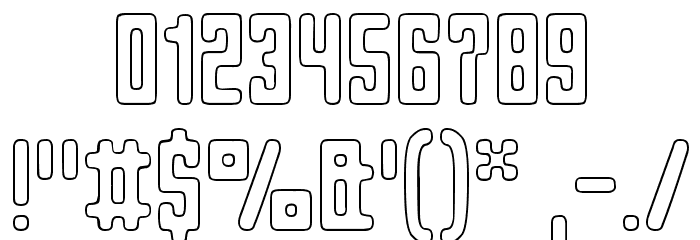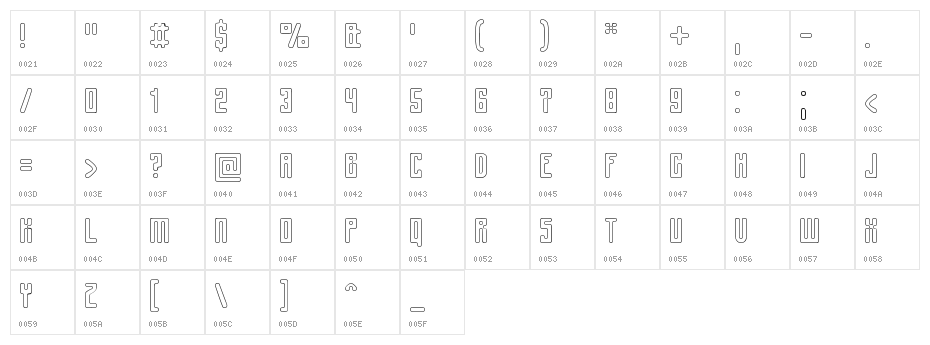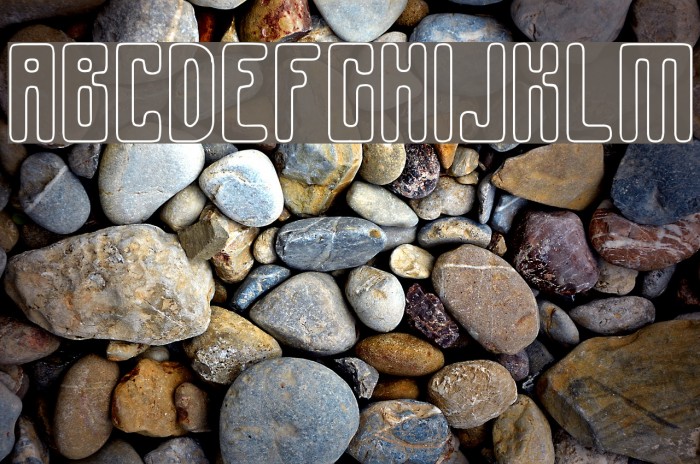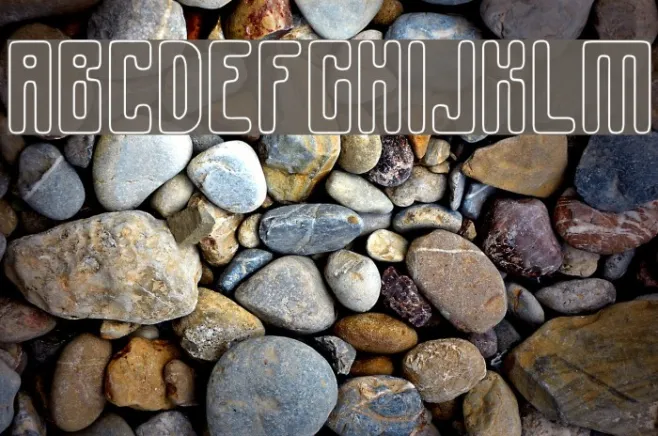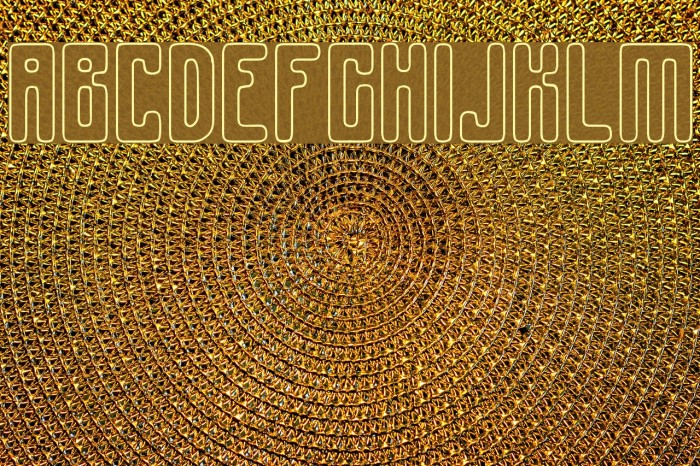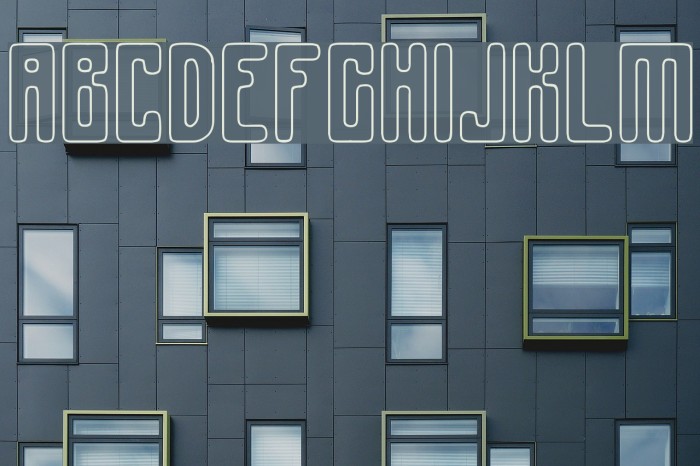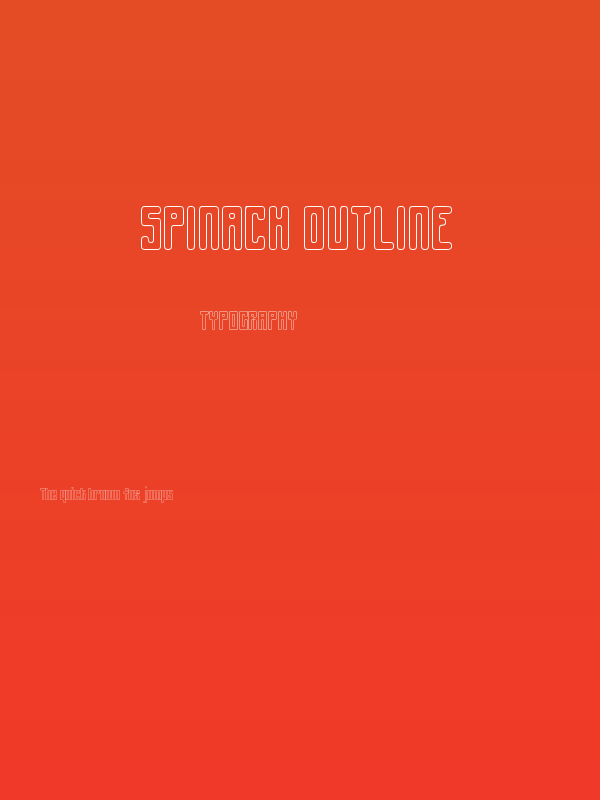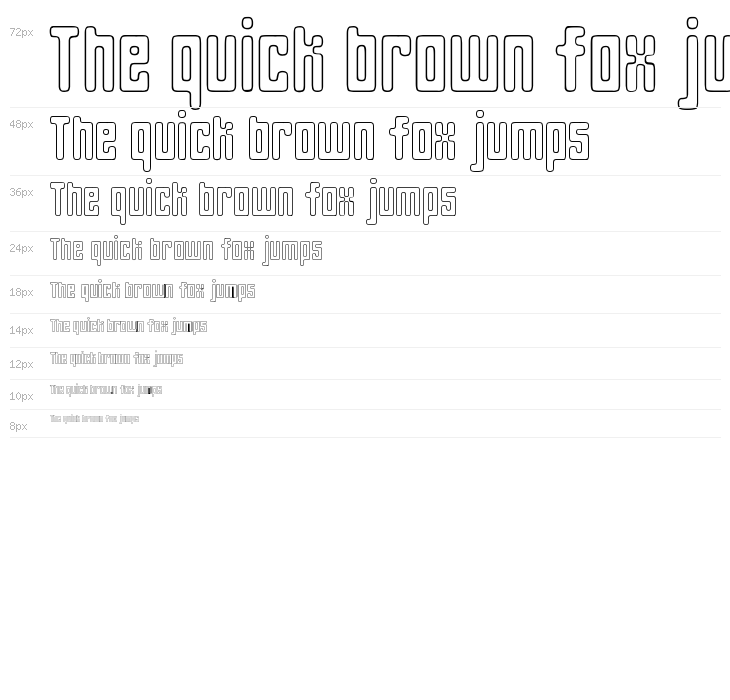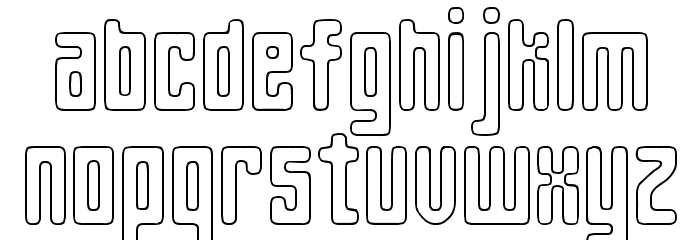
Spinach Outline Font
Spinach Outline Description
This font features a bold, outlined style with a modern and playful aesthetic. The characters are uniformly thick, creating a consistent and cohesive look across all letters and numbers. The uppercase and lowercase letters share a similar structure, maintaining readability while adding a unique flair. The rounded edges and smooth curves give it a friendly and approachable feel, making it suitable for a variety of creative projects. The special characters are designed to match the overall style, ensuring a seamless integration into any text. Its distinct outline design makes it stand out, perfect for eye-catching headlines or logos.
| Proposed Projects | Ideal for logos, posters, headlines, and any design requiring a bold, eye-catching font. |